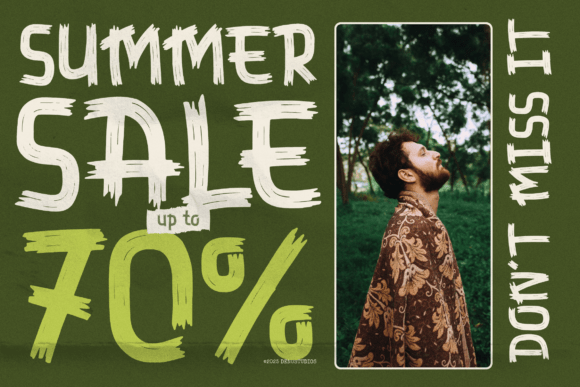
Unleash the Wild Side: Discover the Zelioon Wild Font
In the world of typography, fonts play a crucial role in conveying the tone and personality of a brand or design. For projects that require a bold, rugged, and adventurous feel, the Zelioon Wild Font is an excellent choice. This handwritten font is designed to evoke a sense of raw energy and untamed spirit, making it perfect for outdoor branding, adventure-themed designs, posters, book covers, and more.
What is Zelioon Wild Font?
Zeligon Wild is a bold and rugged handwritten font that exudes a fearless and dynamic vibe. Its rough brush strokes and adventurous feel make it an ideal choice for designers looking to add a natural and organic touch to their projects. With over 240 glyphs, ligatures, and multilingual support, this font is versatile and can be used for a wide range of applications.
Design Applications for Zelioon Wild Font
The Zelioon Wild Font is perfect for designers who want to create bold and eye-catching designs. Here are some of the design applications where this font can be used:
- Outdoor Branding: Whether you’re designing a logo for a hiking gear company or an outdoor apparel brand, Zelioon Wild Font is an excellent choice. Its rugged and adventurous feel perfectly captures the spirit of outdoor exploration.
- Adventure-Themed Designs: From travel brochures to adventure-themed posters, this font is perfect for creating designs that evoke a sense of excitement and exploration.
- Posters and Flyers: Zelioon Wild Font is ideal for creating bold and eye-catching posters and flyers. Its rough brush strokes and adventurous feel make it perfect for promoting events, concerts, or festivals.
- Book Covers: For authors who want to create a bold and eye-catching book cover, Zelioon Wild Font is an excellent choice. Its rugged and adventurous feel is perfect for fiction books, especially those in the adventure, thriller, or mystery genres.
- Streetwear and Fashion: Zelioon Wild Font is also perfect for designing edgy streetwear and fashion brands. Its bold and rugged feel is ideal for creating designs that appeal to a young and adventurous audience.
Key Features of Zelioon Wild Font
The Zelioon Wild Font comes with a range of features that make it an excellent choice for designers. Here are some of its key features:
- Over 240 Glyphs: Zelioon Wild Font comes with over 240 glyphs, including uppercase and lowercase letters, numbers, and punctuation marks.
- Ligatures: The font also includes ligatures, which are special characters that combine two or more letters to create a unique and stylized effect.
- Multilingual Support: Zelioon Wild Font supports multiple languages, making it perfect for designers who work on international projects.
- Rough Brush Strokes: The font’s rough brush strokes give it a raw and untamed energy, making it perfect for designs that require a bold and adventurous feel.
Tips for Using Zelioon Wild Font
Here are some tips for using Zelioon Wild Font in your designs:
- Pair it with a Simple Font: To create visual interest, pair Zelioon Wild Font with a simple font. This will help to balance out the bold and rugged feel of the font.
- Use it for Headings: Zelioon Wild Font is perfect for headings and titles. Use it to create bold and eye-catching headings that grab the reader’s attention.
- Experiment with Colors: The font’s rough brush strokes and adventurous feel make it perfect for experimenting with bold and bright colors.
- Use it for Textured Backgrounds: Zelioon Wild Font looks great on textured backgrounds. Experiment with different textures to add depth and interest to your designs.
Why Choose Zelioon Wild Font?
Here are some reasons why you should choose Zelioon Wild Font for your next design project:
- Unique and Eye-Catching: The font’s bold and rugged feel makes it unique and eye-catching. It’s perfect for designers who want to create designs that stand out from the crowd.
- Versatile: Zelioon Wild Font is versatile and can be used for a wide range of design applications. From outdoor branding to streetwear and fashion, this font is perfect for any project that requires a bold and adventurous feel.
- High-Quality: The font is designed to high-quality standards, ensuring that it looks great in any design.
In conclusion, Zelioon Wild Font is an excellent choice for designers who want to create bold and eye-catching designs. Its rugged and adventurous feel makes it perfect for outdoor branding, adventure-themed designs, posters, book covers, and more. With over 240 glyphs, ligatures, and multilingual support, this font is versatile and can be used for a wide range of applications. Whether you’re designing for wilderness exploration or edgy streetwear, Zelioon Wild Font brings a fearless and dynamic vibe to any project.